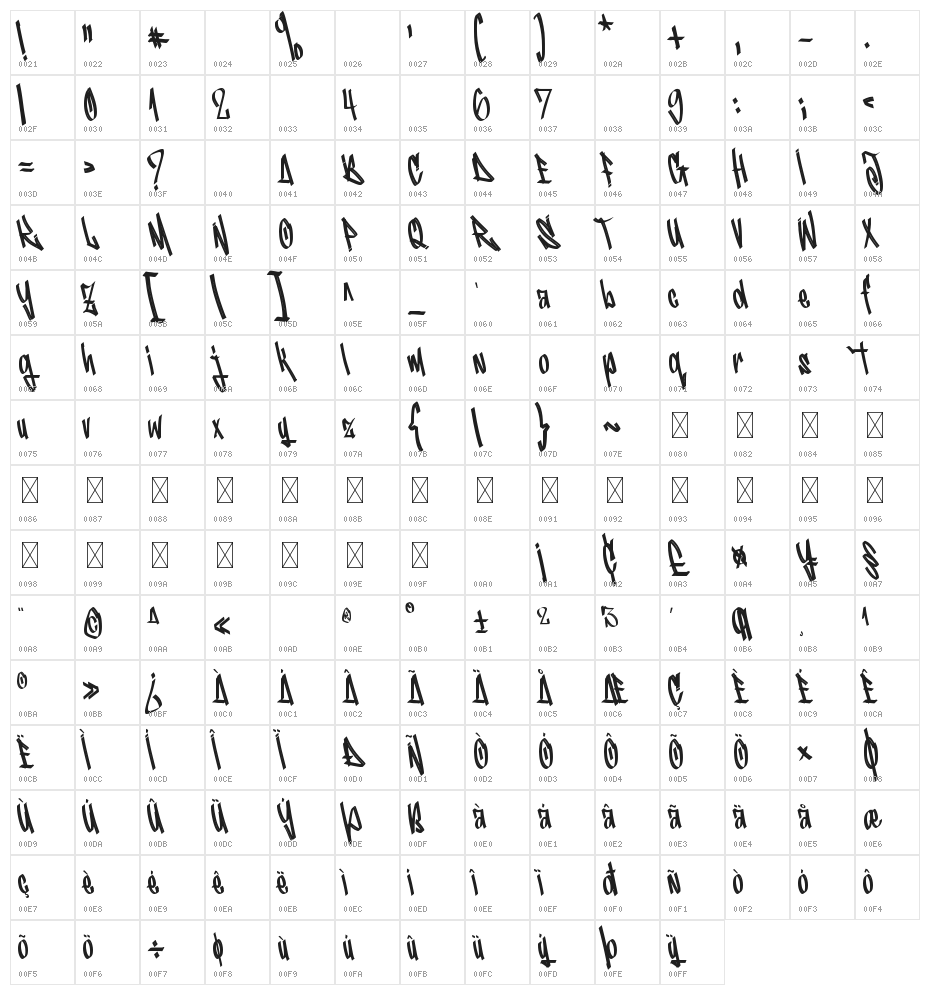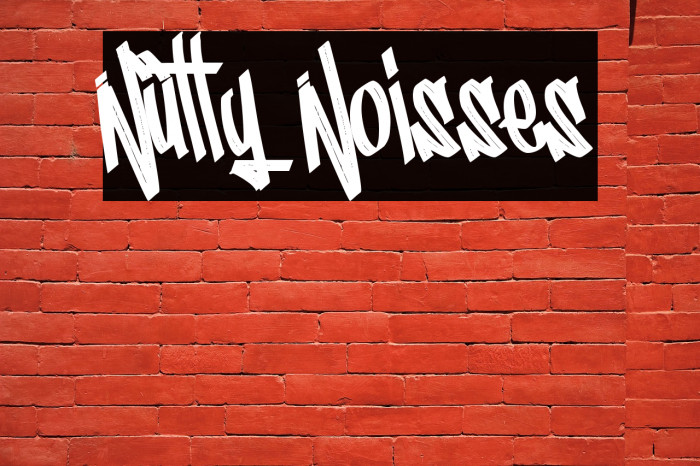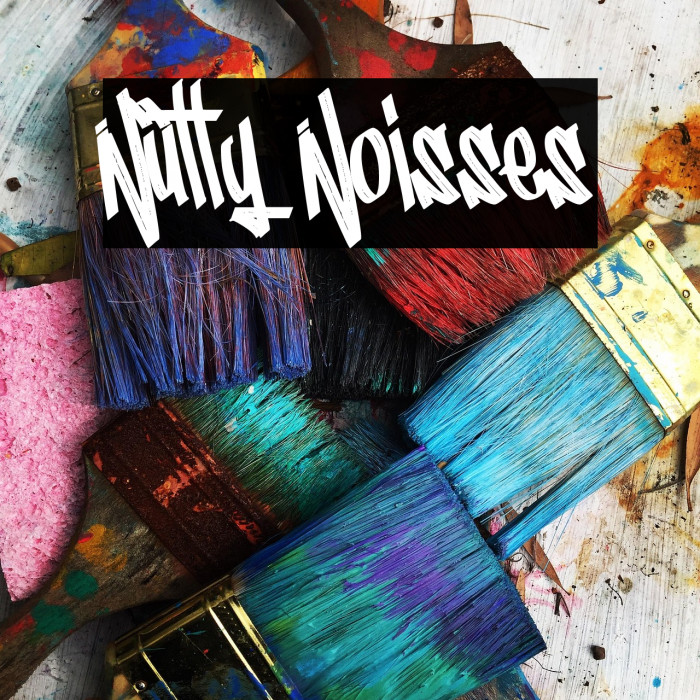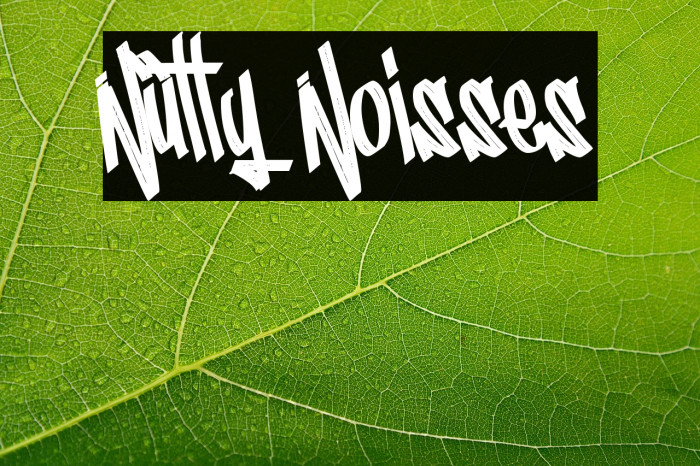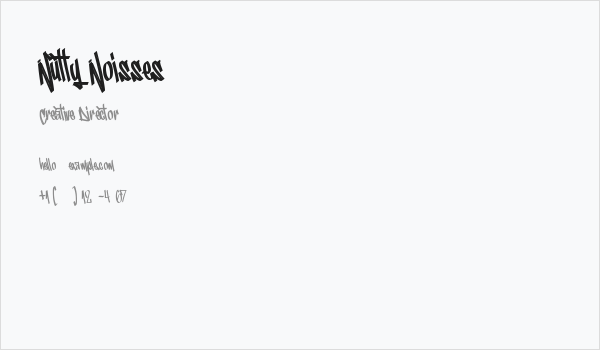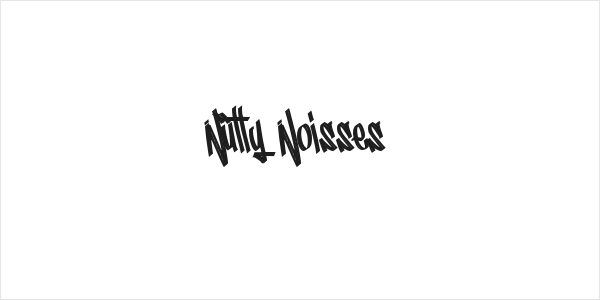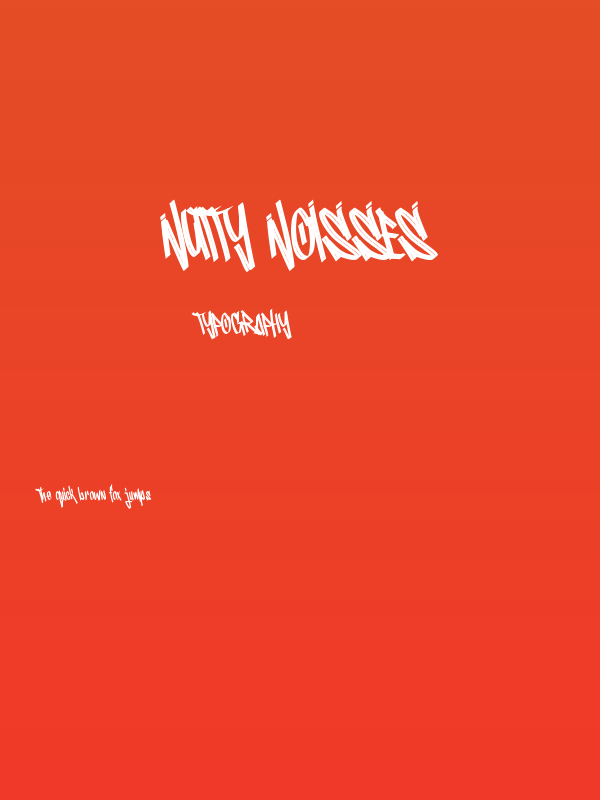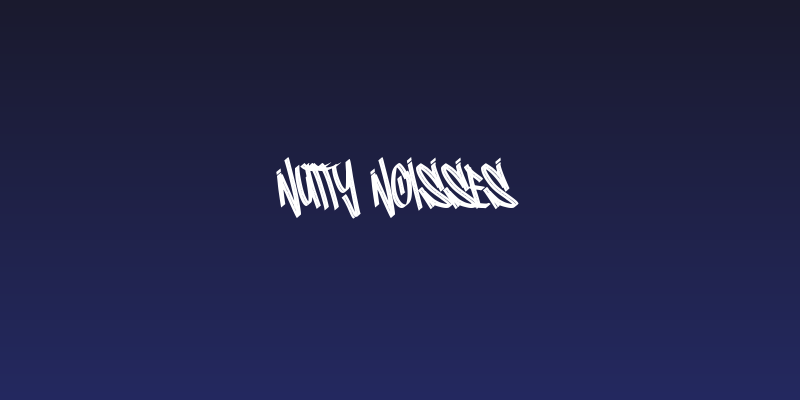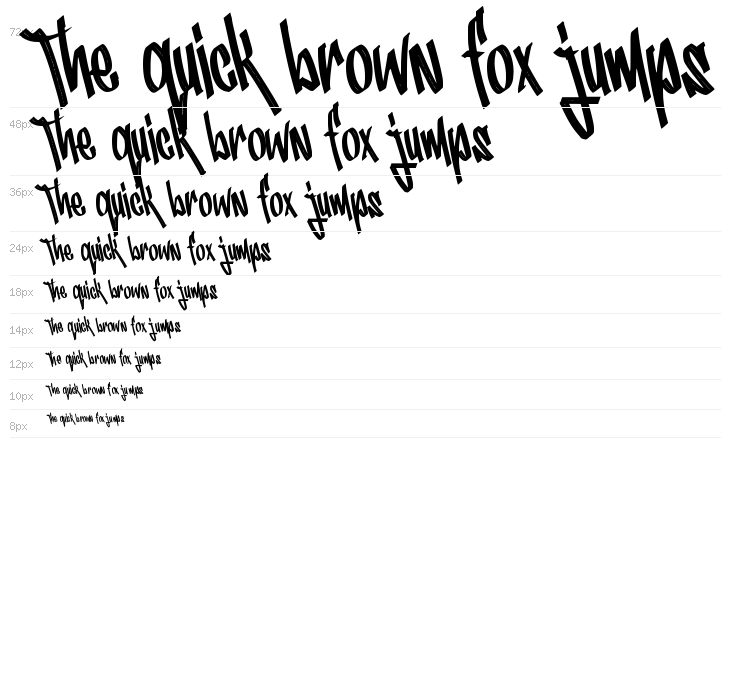
Nutty Noisses Font
Nutty Noisses Description
This font exudes a bold and edgy graffiti style, characterized by its sharp angles and dynamic strokes. The letters are highly stylized, with exaggerated curves and a sense of movement that gives them a rebellious and urban feel. The uppercase and lowercase letters maintain a consistent style, with a slightly condensed appearance that enhances their striking presence. Numbers and special characters follow the same aesthetic, making the font versatile for creative projects. The overall design is energetic and expressive, perfect for making a statement.
| Overall Style | Modern, Urban, Edgy |
| Proposed Projects | Ideal for street art-inspired designs, music album covers, urban-themed posters, and edgy branding projects. |